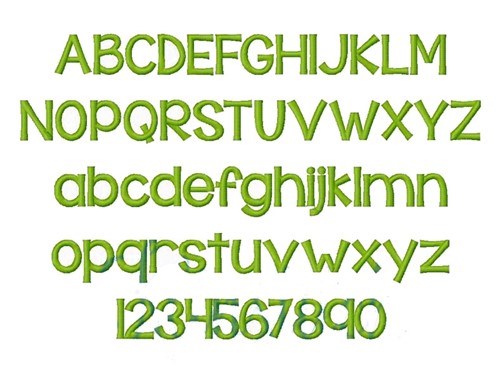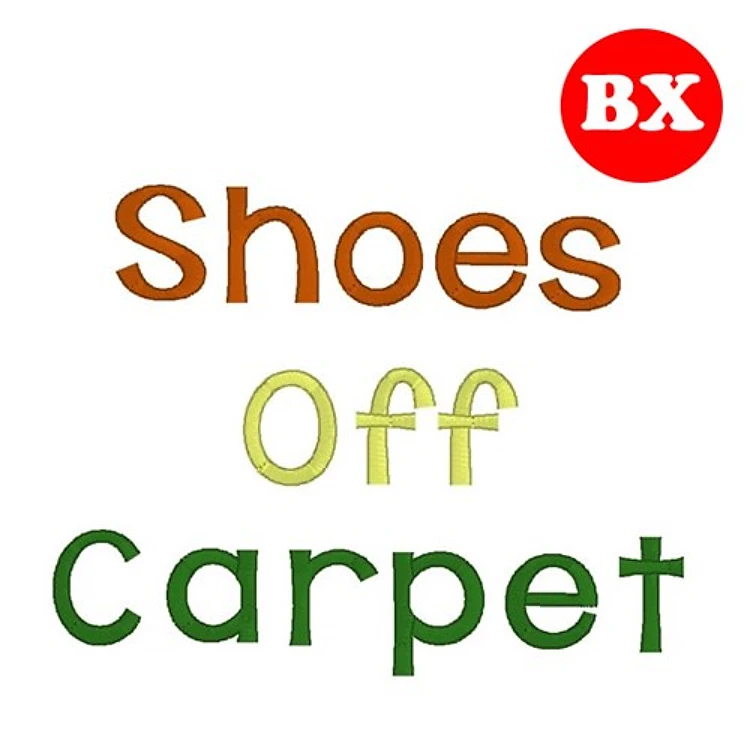
Unicorn Creatives is happy to present Shoes Off Carpet Embrilliance Embroidery Font - Playful Casual Alphabet - BX font machine embroidery font which has Playful machine embroidery font showcasing 'Shoes Off Carpet' in brown, yellow-green, and green. Ideal for home décor projects like mats or pillows. Available in BX font and Embrilliance formats. included. If you would like to view more embroidery fonts and alphabets please search our embroidery fonts page.
Shoes Off Carpet Embrilliance Embroidery Font - Playful Casual Alphabet - BX font